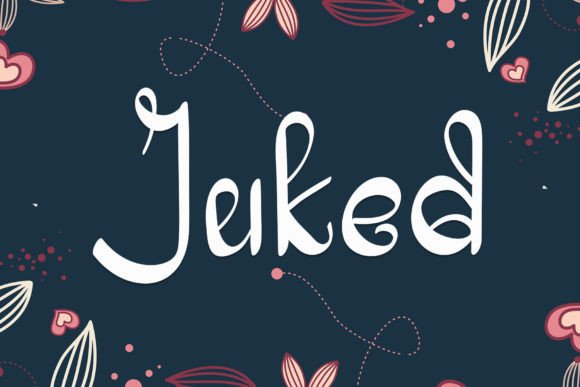
Introducing Juked, a script font that is as unique as your swing and as bold as your team spirit. Designed by Giart Studios, Juked captures the raw energy and tenacious spirit of the game, making it the perfect font for your sports-themed designs and branding projects.
With its playful curves and dynamic stroke, Juked dances across your screen like a nimble player on the field. Its casual style lends a touch of authenticity to your work, making it perfect for creating jerseys, logos, posters, and other sports-related designs that demand authenticity and flair.
Dive into the world of Juked and let your creativity soar with the following features:
* **Unleash Your Sports Enthusiasm:** Juked is meticulously crafted to reflect the passion and vitality of sports, enabling you to infuse your designs with infectious energy and team spirit.
* **Express Your Individuality:** Juked's captivating style allows you to make a statement and stand out from the crowd. Its playful strokes add a touch of individuality to your designs, making them as unique as your game-winning strategy.
* **Versatile Across Platforms:** Whether you're crafting designs for print or digital, Juked seamlessly adapts to your chosen medium. Its adaptability makes it a versatile asset in your creative toolkit.
* **Effortless Customization:** With Juked's user-friendly format, customization is a breeze. Tailor the font to suit your specific vision and watch your designs come to life with unparalleled ease.